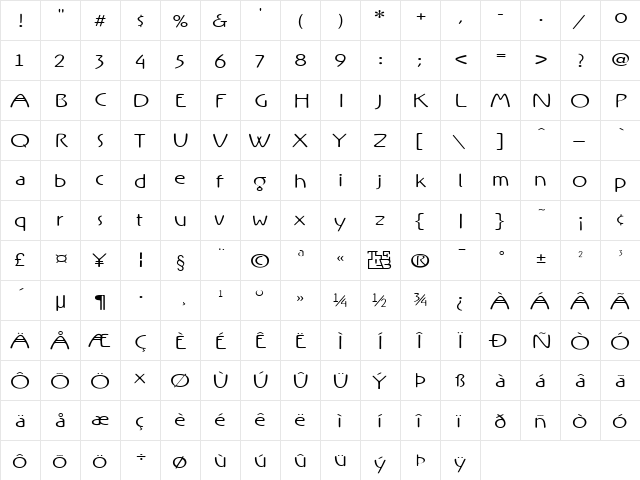
Rx-OneZero Regular
Design Context for Rx-OneZero Typeface
Rx-OneZero offers clean, dependable letterforms without strong stylistic allegiance, making it a practical choice for designers who need flexibility.